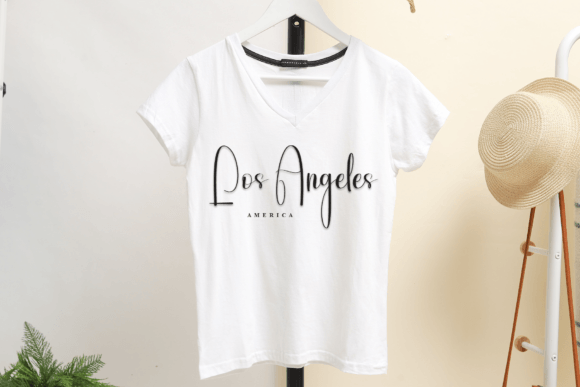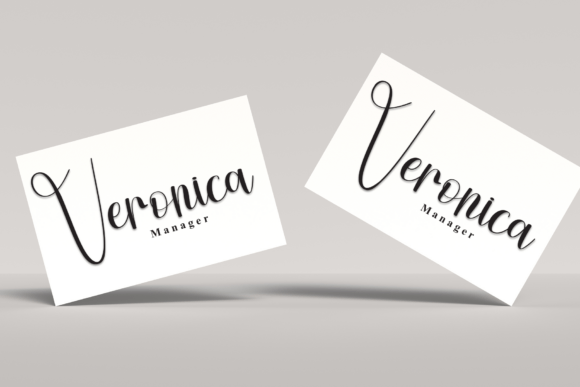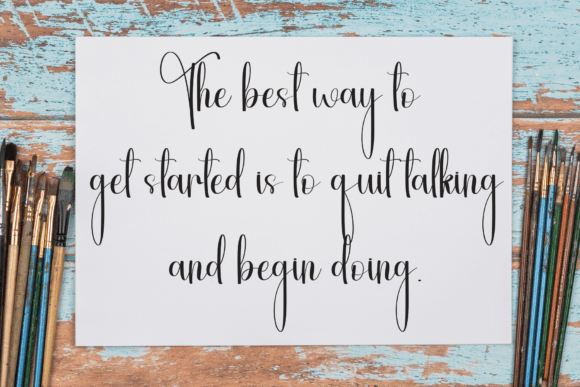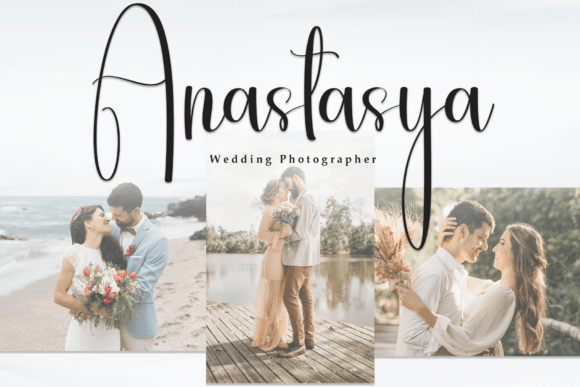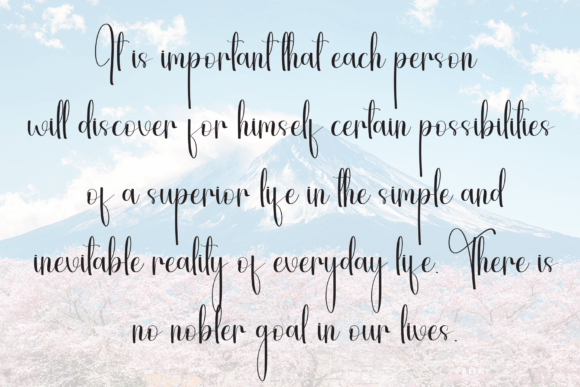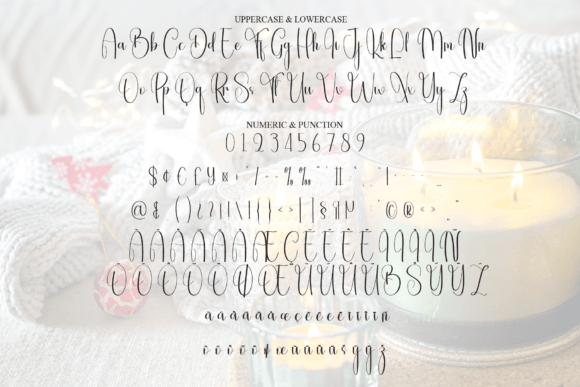
Introducing Christmas Candles Font: A Charmingly Delightful Handwritten Display Font
Are you looking for a font that can add a warm and friendly vibe to your creative projects? Look no further than Christmas Candles Font, a charmingly delightful handwritten display font that is sure to bring a smile to your face. This whimsical and enjoyable typography is perfect for designers and crafters who want to add a touch of fun and personality to their work.
A Font that Exudes Warmth and Friendliness
Christmas Candles Font is a beautifully crafted font that exudes a warm and friendly vibe. Its handwritten style gives it a personal and approachable feel, making it perfect for projects that require a touch of warmth and personality. Whether you’re designing wedding invitations, greeting cards, or any other type of project, this font is sure to bring a sense of joy and festivity to your work.
Perfect for a Variety of Creative Projects
Christmas Candles Font is a versatile font that can be used in a variety of creative projects. Its whimsical and playful style makes it perfect for:
- Wedding invitations: Add a touch of romance and whimsy to your wedding invitations with Christmas Candles Font.
- Greeting cards: Make your greeting cards stand out with this delightful font that is sure to bring a smile to the recipient’s face.
- Design projects: Add a fun and playful twist to your design projects with Christmas Candles Font. It’s perfect for projects that require a touch of personality and whimsy.
What Sets Christmas Candles Font Apart
So what sets Christmas Candles Font apart from other fonts? Here are a few things that make it unique:
- Handwritten style: Christmas Candles Font has a beautiful handwritten style that gives it a personal and approachable feel.
- Whimsical and playful: This font is whimsical and playful, making it perfect for projects that require a touch of fun and personality.
- Versatile: Christmas Candles Font can be used in a variety of creative projects, from wedding invitations to design projects.
How to Use Christmas Candles Font
Using Christmas Candles Font is easy. Here are a few tips to get you started:
- Pair it with other fonts: Christmas Candles Font pairs well with other fonts, so feel free to experiment with different combinations.
- Use it for headings: This font is perfect for headings and titles, so use it to add a touch of personality to your project.
- Experiment with colors: Christmas Candles Font looks great in a variety of colors, so don’t be afraid to experiment and find the perfect color for your project.
Why You’ll Love Christmas Candles Font
Here are a few reasons why you’ll love Christmas Candles Font:
- It’s fun and playful: This font is perfect for designers and crafters who want to add a touch of fun and personality to their work.
- It’s versatile: Christmas Candles Font can be used in a variety of creative projects, making it a great addition to your font collection.
- It’s easy to use: This font is easy to use and pairs well with other fonts, making it perfect for beginners and experienced designers alike.
Christmas Candles Font is a charmingly delightful handwritten display font that is sure to bring a warm and friendly vibe to your creative projects. Its whimsical and playful style makes it perfect for a variety of projects, from wedding invitations to design projects. With its versatility, ease of use, and fun personality, Christmas Candles Font is a great addition to any font collection. So why wait? Adorn your messages with this affectionate font and leave a lasting impression on your audience!